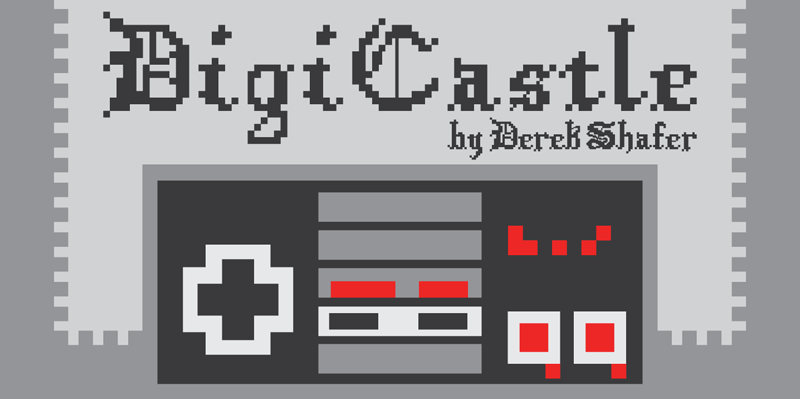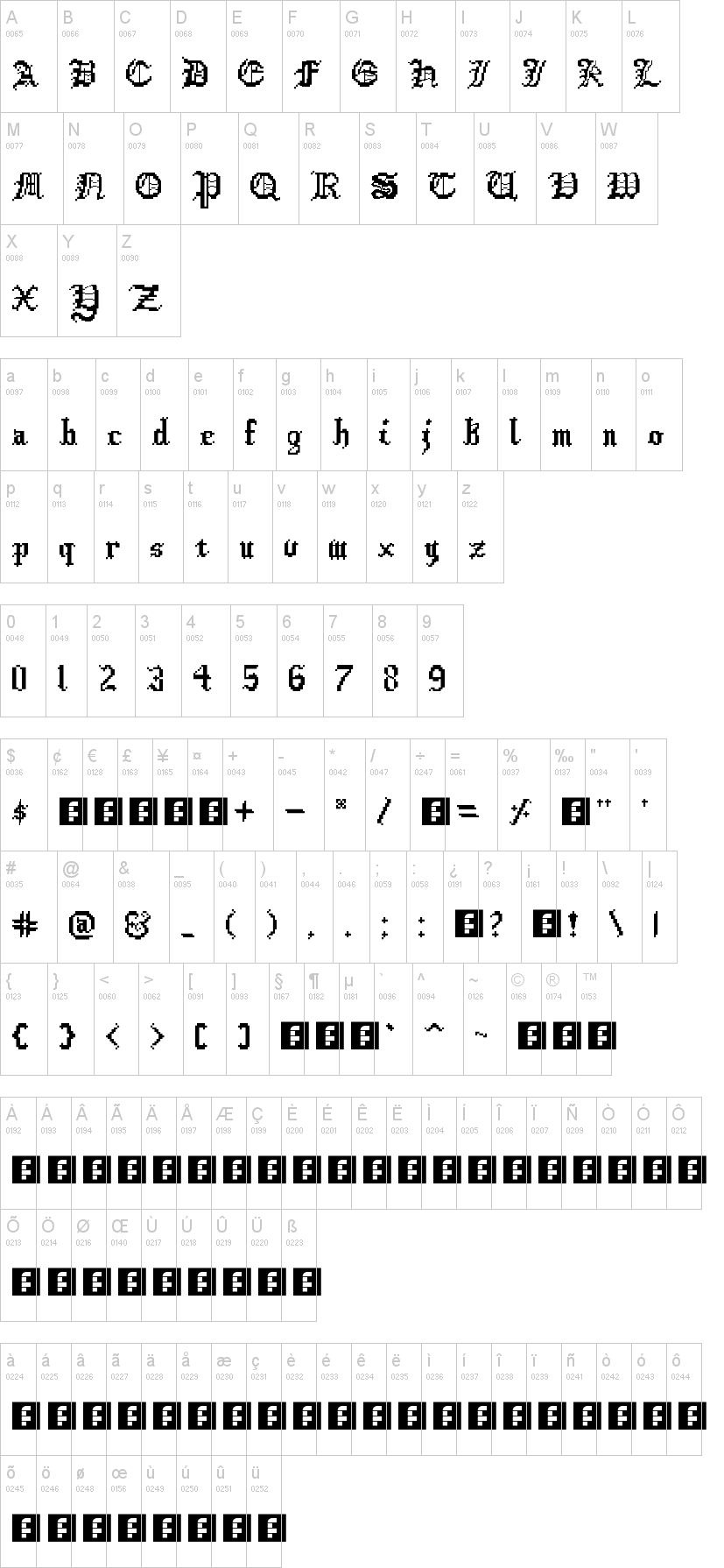
Note of the authorDigiCastle is a font that merges two drastically different type styles: ancient medieval blackletter typography, and 8-bit typography. To create this typeface, old blackletter fonts such as Canterbury, Blackletter, and Old England were smashed together with the typography from 8-bit video games of the 1980s such as Super Mario Bros 3, Metroid, The Legend of Zelda, and Mega Man 2. By combining these two different styles, the font retains the detail of highly ornamented blackletter type, while breaking down those ornaments to the most essential parts. With equal cap-heights and widths, this font can be used practically, or decoratively to portray various different meanings. This font is imagined to be used for a medieval themed 8-bit game, using this font within the titles and stories, however, this font may be put to use in many versatile ways, depending on the designer who chooses to use it. This font strives to combine the new and the old through its uniqueness and characterization.